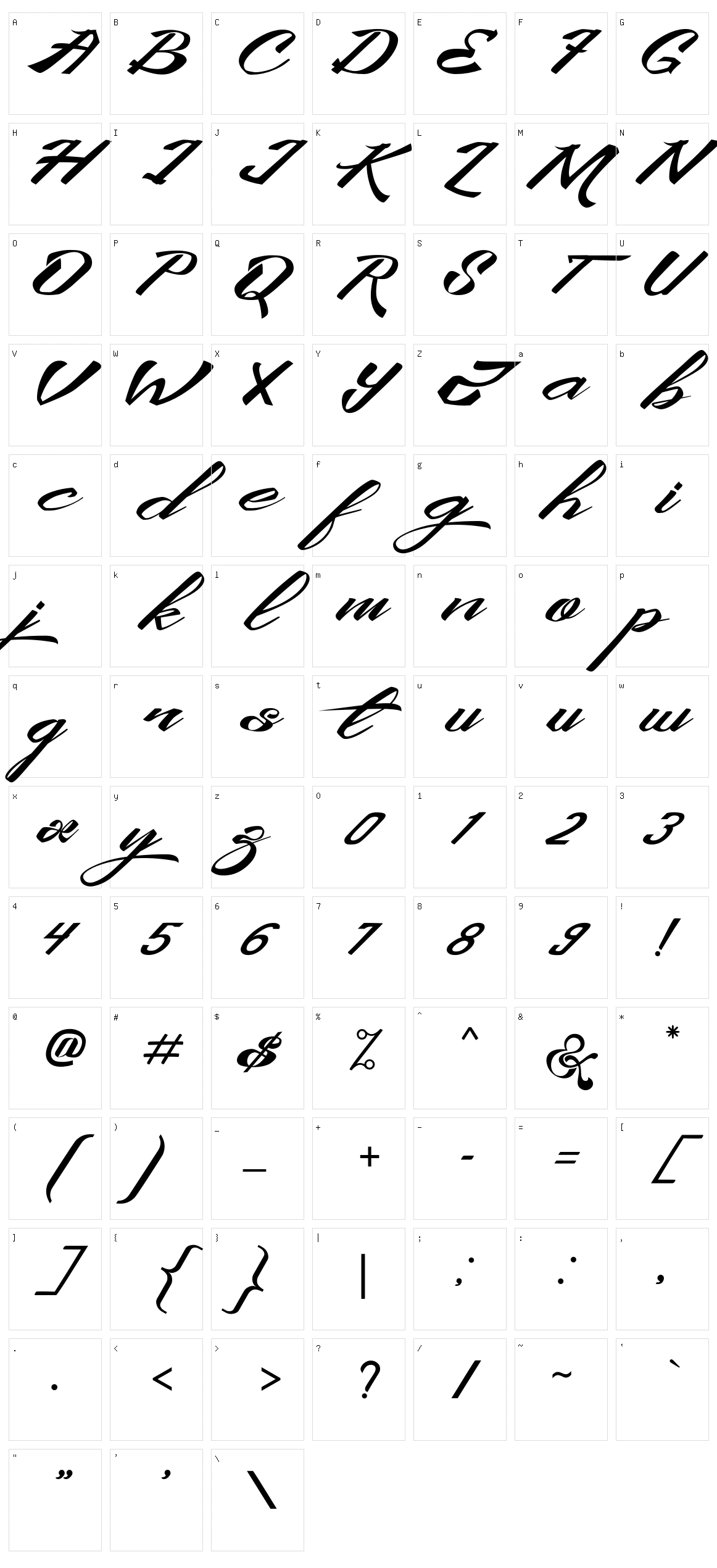
King City
Designed by: FHFont
Description: The free font King City is carefully designed by FHFont, showcasing a thoughtful balance of creativity and usability and falls under the Script font style. When you download the ZIP file, it contains only 4072.14 KB of font files, making it lightweight and quick to download. Please review the license details below to understand permitted usage and distribution rights. If license information is not available, we recommend using this font for personal projects only or contacting the author directly for commercial usage permissions.